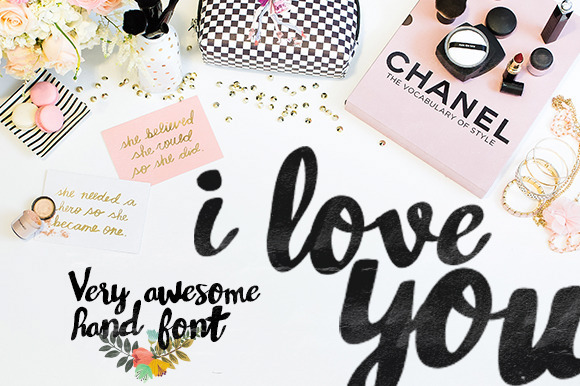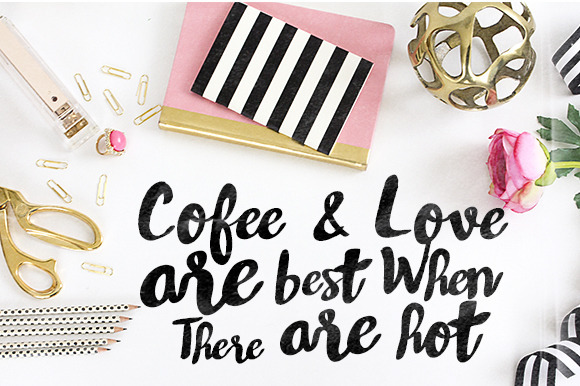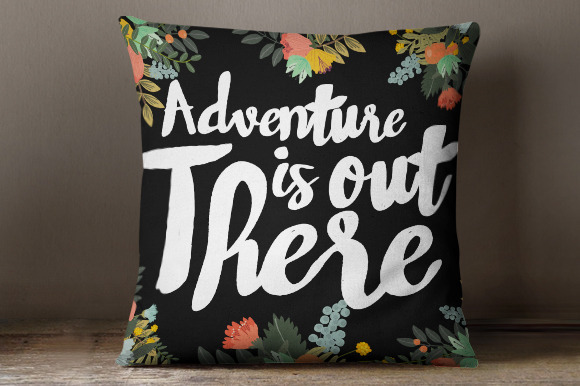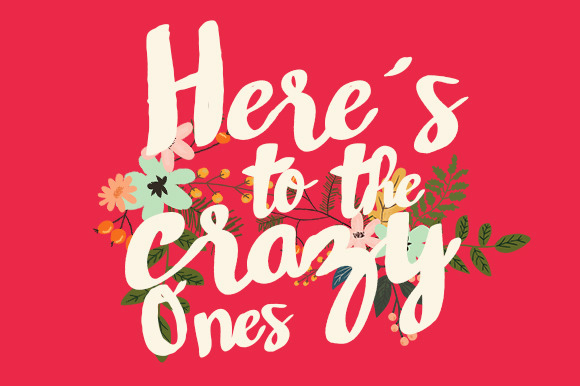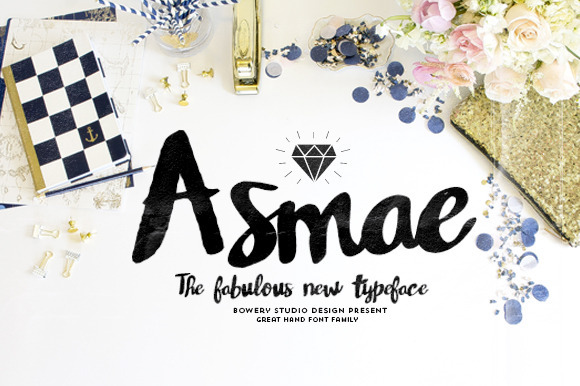
Asmae Handwritten
Asmae Handwritten Font
Asmae – handwritten font. Asmae is cute font made by hands and pen. It’s perfect for designs when you need to simulate handwriting effect. It’s look great on wedding (or other) invitations, greeting cards, stamps, posters, advertising, flyers.